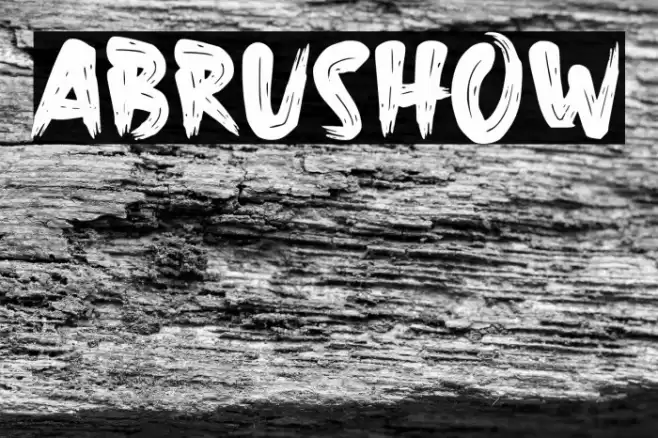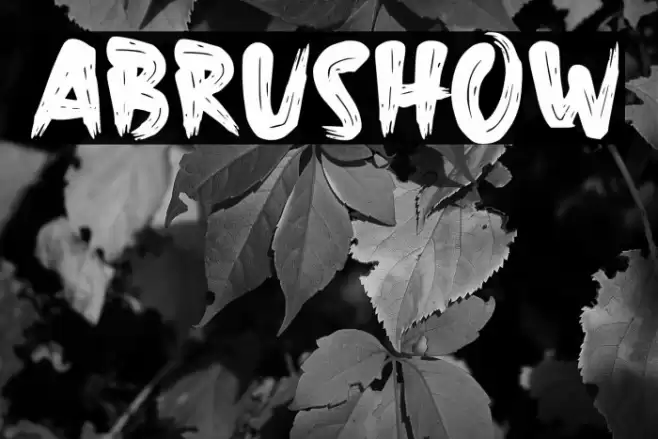
Abrushow Font
Abrushow Description
This font features a bold, brush-like style with dynamic, energetic strokes that give it a hand-painted appearance. The characters are irregular and expressive, with a sense of movement and spontaneity. The uppercase and lowercase letters maintain a consistent style, with each character having a unique flair. The numbers and special characters follow the same artistic theme, making the font suitable for creative and informal designs. The overall impression is one of boldness and creativity, making it ideal for projects that require a strong visual impact.
A bold, brush-style font with dynamic and expressive strokes from Uncategorized fonts.
- Proposed Projects: Ideal for posters, album covers, branding, and any project needing a bold, artistic touch.